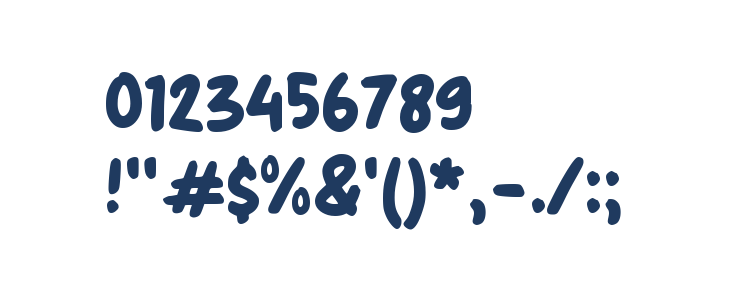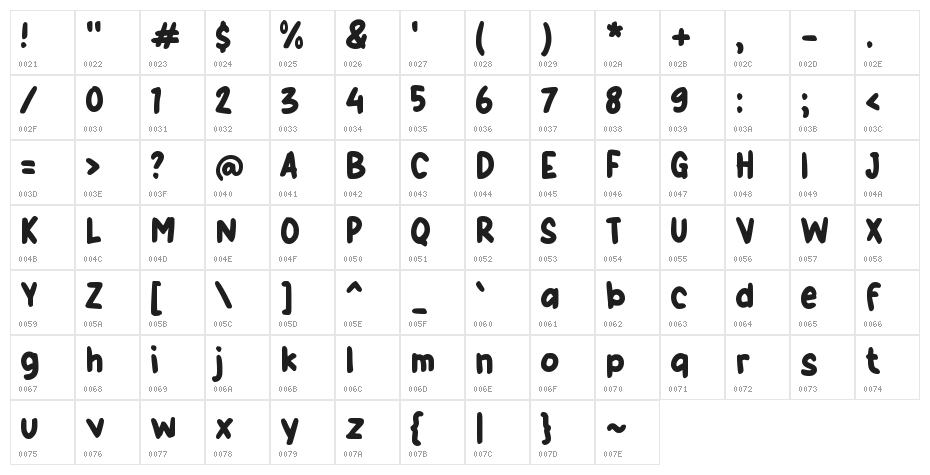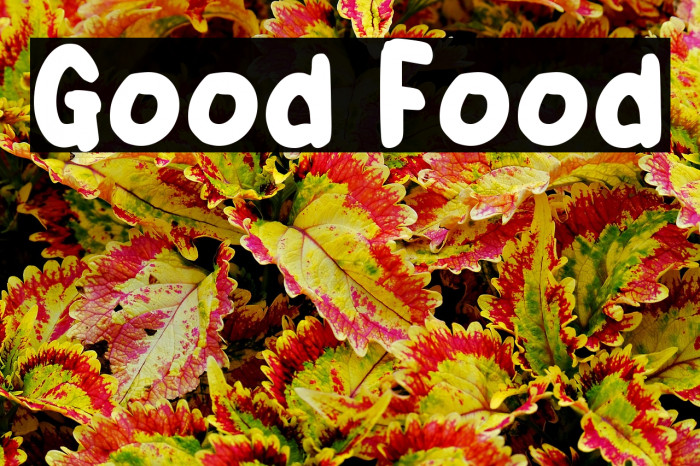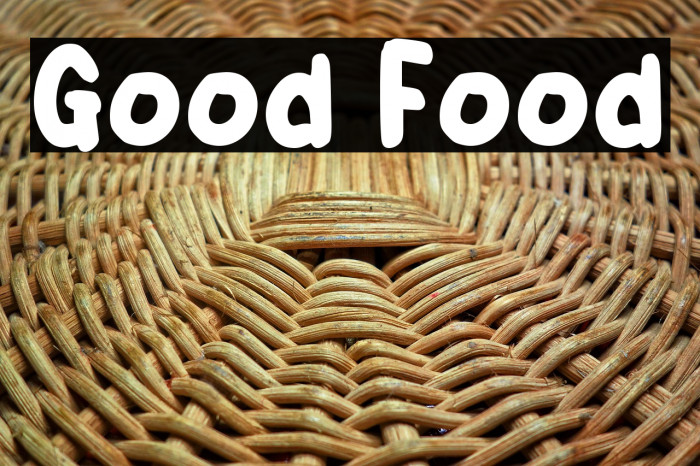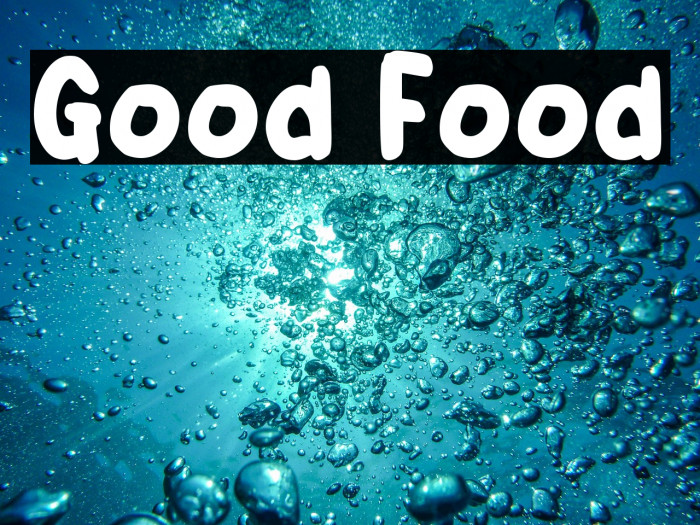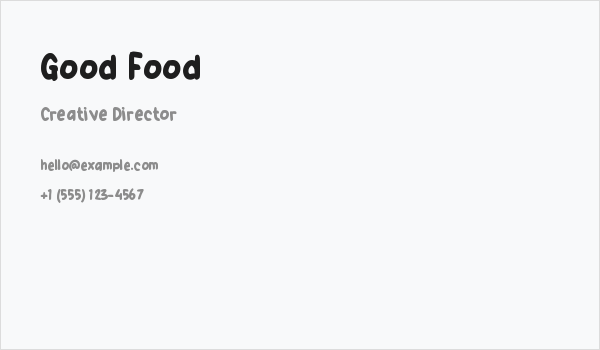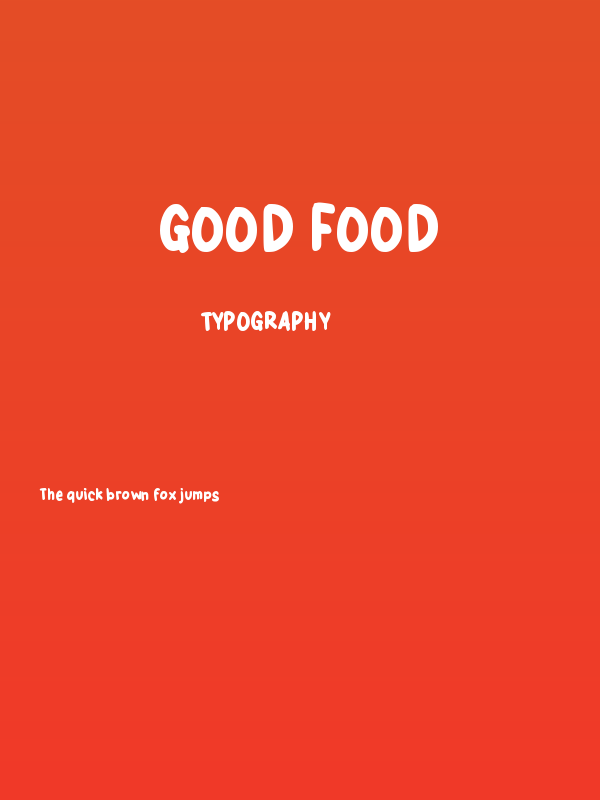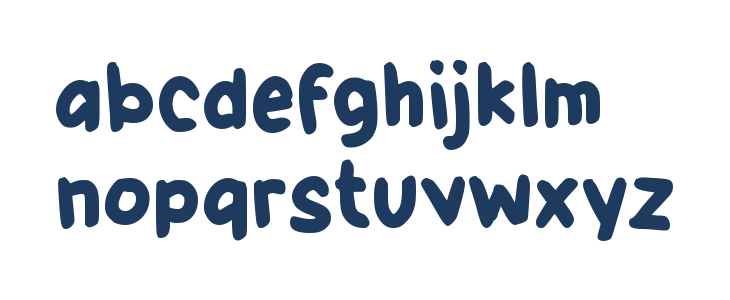
Good Food Font
Good Food Description
This font features a playful and bold style with rounded edges and a hand-drawn appearance. The characters are thick and slightly irregular, giving them a friendly and approachable look. The uppercase and lowercase letters maintain a consistent style, with a slight tilt that adds to the casual feel. The numbers and special characters follow the same design principles, ensuring uniformity across all glyphs. This font's unique charm makes it suitable for projects that require a personal touch or a fun, informal vibe.
Overall StyleCasual
Use CaseHeadlines, Logos, Informal Text
Proposed ProjectsIdeal for children's books, playful branding, casual invitations, and social media graphics.